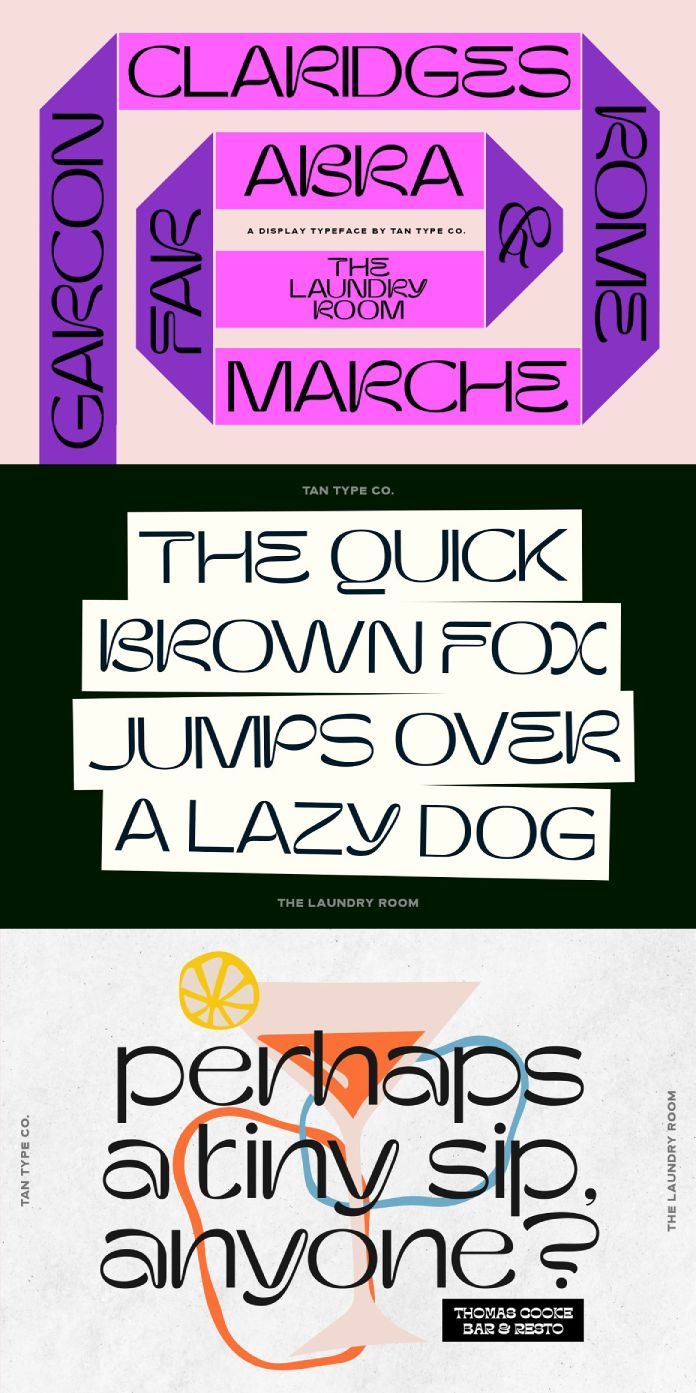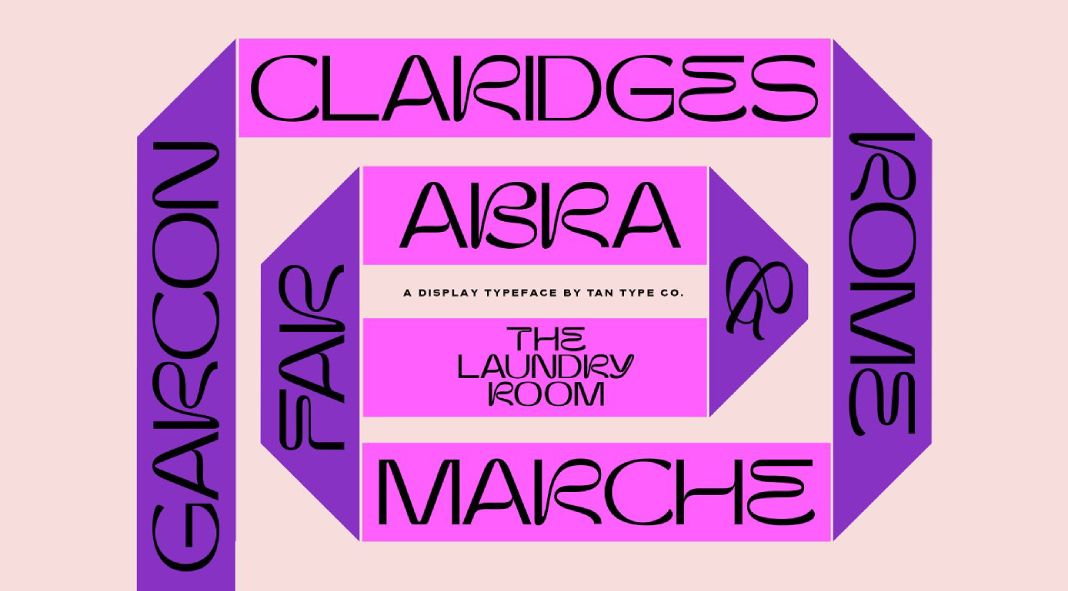
Say hello to THE LAUNDRY ROOM, another amazing and completely unique display font from foundry TanType.
The unique typefaces of foundry TanType are extremely popular these days and we predict that THE LAUNDRY ROOM will be no exception. The font masterfully combines simple straight lines with elegant curves. It’s no wonder that it has already been used for various logotypes and branding campaigns. The best part of THE LAUNDRY ROOM is its versatility: It works just as well for a small business logo or a chic fashion magazine title! If you’re looking to add an eye-catching element to your design projects, THE LAUNDRY ROOM font is a perfect choice. Give it a try and see for yourself!